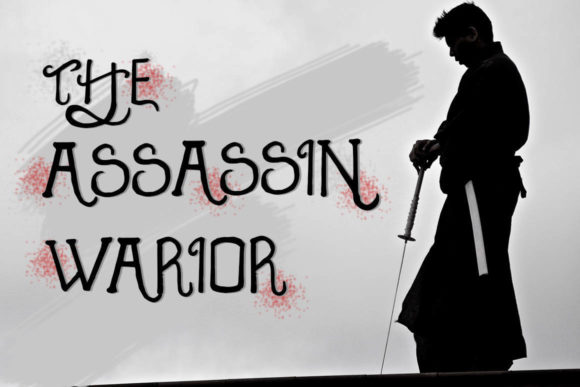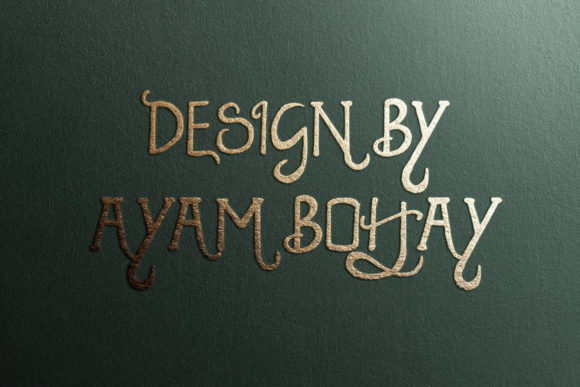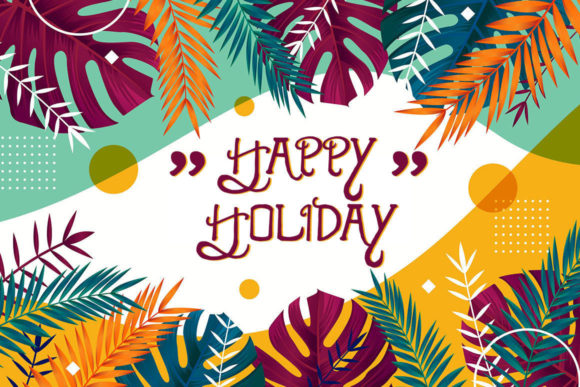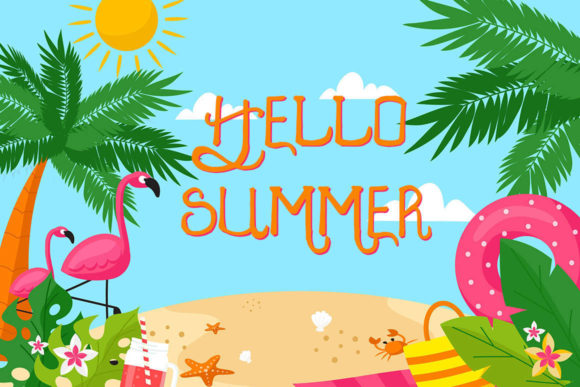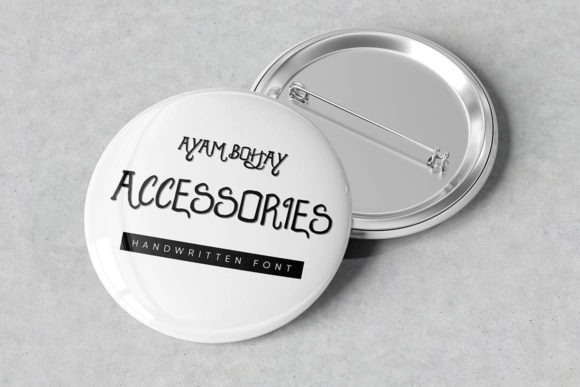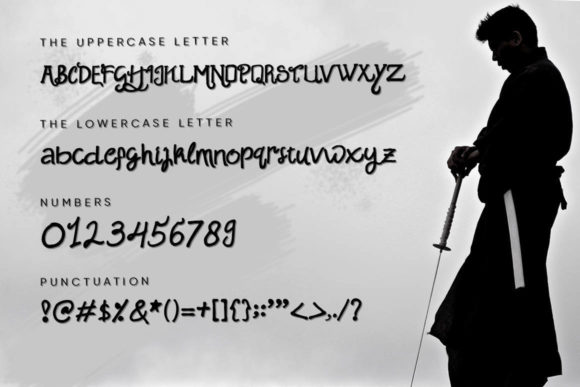
Ayam Bohay Font: Elevate Your Designs with Elegance and Sophistication
Are you tired of using the same old fonts in your designs? Look no further than the Ayam Bohay font, a stunning handwritten font that is sure to become your new favorite. With its perfect blend of classy calligraphic influences and modern freshness, Ayam Bohay is the ideal choice for designers and crafters looking to add a touch of elegance and sophistication to their projects.
The Story Behind Ayam Bohay Font
Ayam Bohay is more than just a font – it’s a work of art. Masterfully designed to capture the essence of traditional calligraphy, Ayam Bohay boasts a unique and exquisite style that is sure to captivate your audience. Whether you’re working on a branding project, a wedding invitation, or a packaging design, Ayam Bohay is the perfect choice to add a touch of luxury and refinement.
Key Features of Ayam Bohay Font
- Handwritten with love: Ayam Bohay is a carefully crafted handwritten font, giving it a personal and authentic feel that is hard to replicate with machine-generated fonts.
- Classy calligraphic influences: With its roots in traditional calligraphy, Ayam Bohay maintains a level of sophistication and elegance that is perfect for high-end designs.
- Contemporary and fresh: Despite its classic influences, Ayam Bohay has a modern twist that makes it feel fresh and relevant in today’s design landscape.
- Versatile: Ayam Bohay is suitable for a wide range of design projects, from branding and advertising to packaging and editorial design.
Why Choose Ayam Bohay Font?
So why choose Ayam Bohay font for your next design project? Here are just a few reasons:
- Add a touch of elegance: With Ayam Bohay, you can add a level of sophistication and refinement to your designs that will set them apart from the competition.
- Stand out from the crowd: Ayam Bohay is a unique and distinctive font that will help your designs stand out in a crowded marketplace.
How to Use Ayam Bohay Font in Your Designs
Using Ayam Bohay font in your designs is easy. Here are a few tips to get you started:
- Pair it with a sans-serif font: Ayam Bohay looks great paired with a clean and simple sans-serif font, such as Arial or Helvetica.
- Use it for headlines and titles: Ayam Bohay is perfect for headlines and titles, where its elegant and sophisticated style can really shine.
- Experiment with different colors and textures: Ayam Bohay looks great in a variety of colors and textures, so don’t be afraid to experiment and find the perfect combination for your design.
In conclusion, Ayam Bohay font is a truly exquisite handwritten font that is sure to become a favorite among designers and crafters. With its perfect blend of classy calligraphic influences and modern freshness, Ayam Bohay is the ideal choice for anyone looking to add a touch of elegance and sophistication to their designs. So why wait? Fall in love with Ayam Bohay and bring your projects to the highest levels!